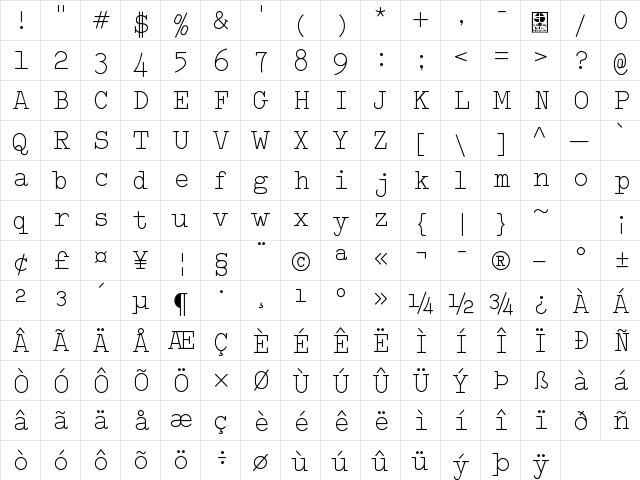
Typo Writer Light Demo Regular
| Foundry | StudioTypo |
| Designer | MEHMET ABACI |
Design Context for Typo Writer Light Demo Typeface
Typo Writer Light Demo offers clean, dependable letterforms without strong stylistic allegiance, making it a practical choice for designers who need flexibility. The delicate stroke weight brings airiness and refinement to layouts.